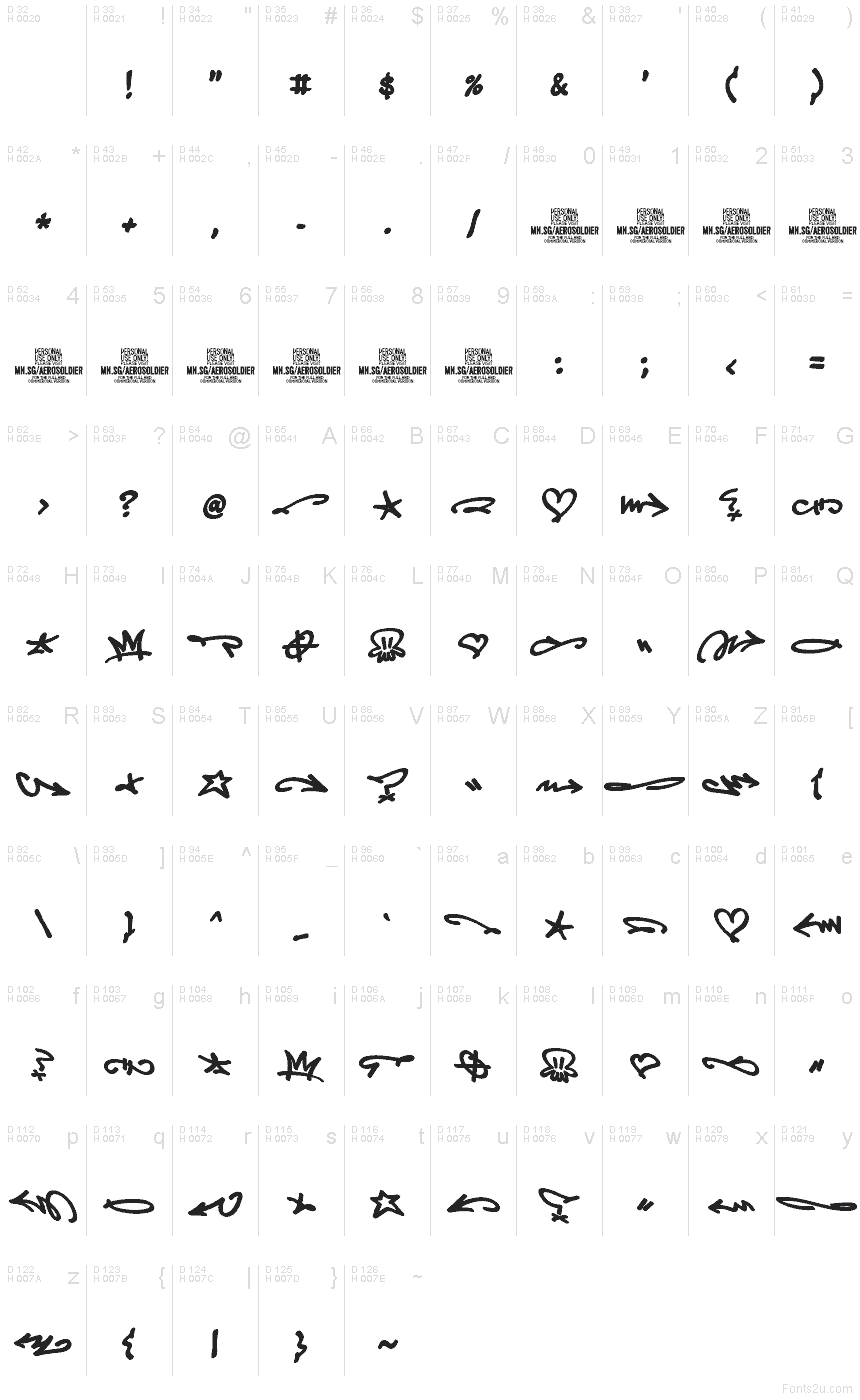
Aerosoldier Basic Symbol PERS Regular
Aerosoldier Basic Symbol font by Mans Greback is a free dingbats typeface in the Aerosoldier family that drops instant urban attitude into your layout. Thick, inky strokes swing like a fat marker across a wall-arrows, stars, hearts, and squiggles that feel freshly tagged. The symbols have a loose, energetic rhythm, so you can punctuate headlines or photos with quick hand-drawn accents without hunting for custom graphics.
Using Aerosoldier Basic Symbol, you can juice up event flyers, streetwear lookbooks, stickers, album art, social posts, and YouTube thumbnails. The icons land with punch at larger sizes and read well even on busy backgrounds. Pair these marks with a clean, condensed sans to let the graffiti-style shapes lead; a touch of extra tracking keeps combos airy and bold. This free font makes expressive, urban detailing fast and fun.